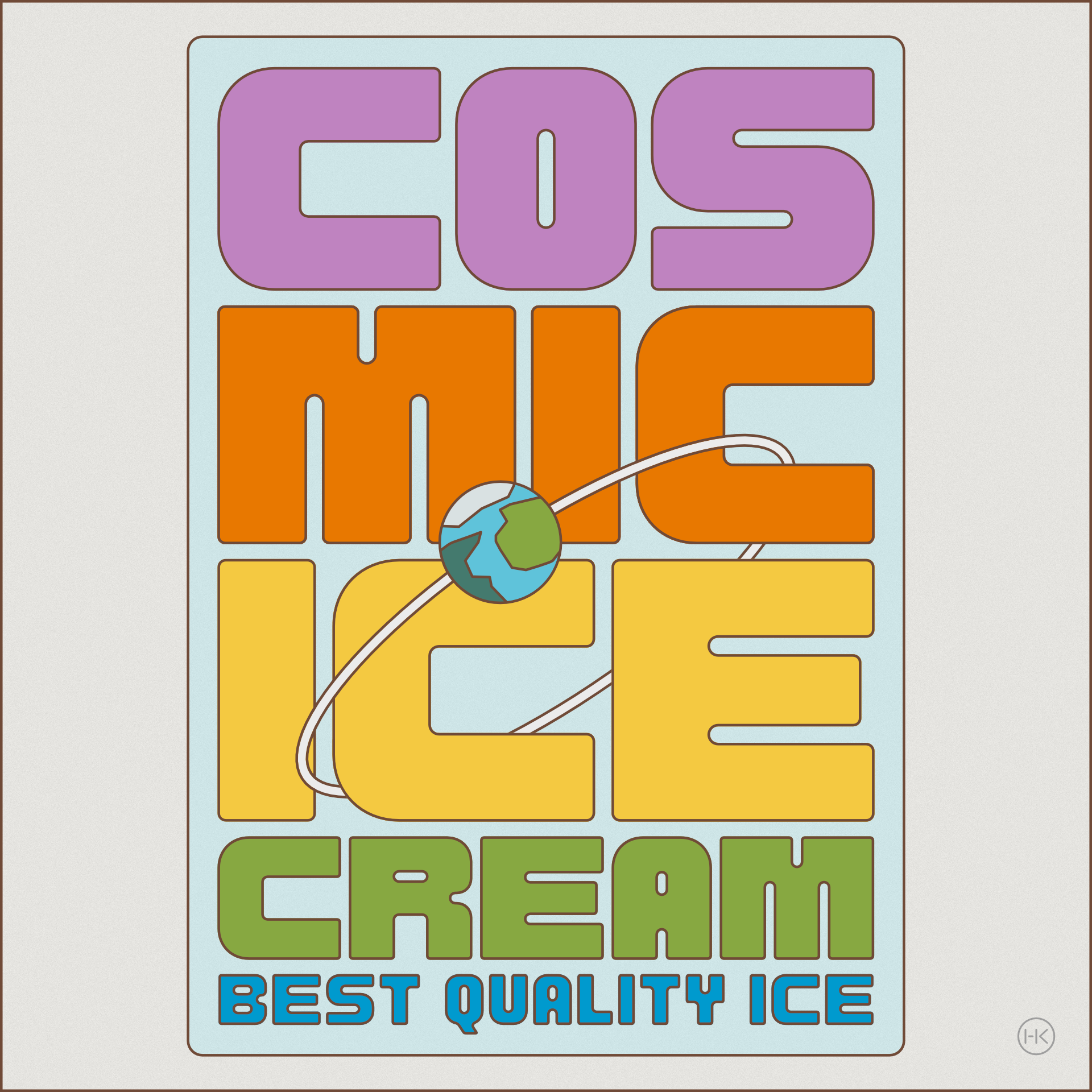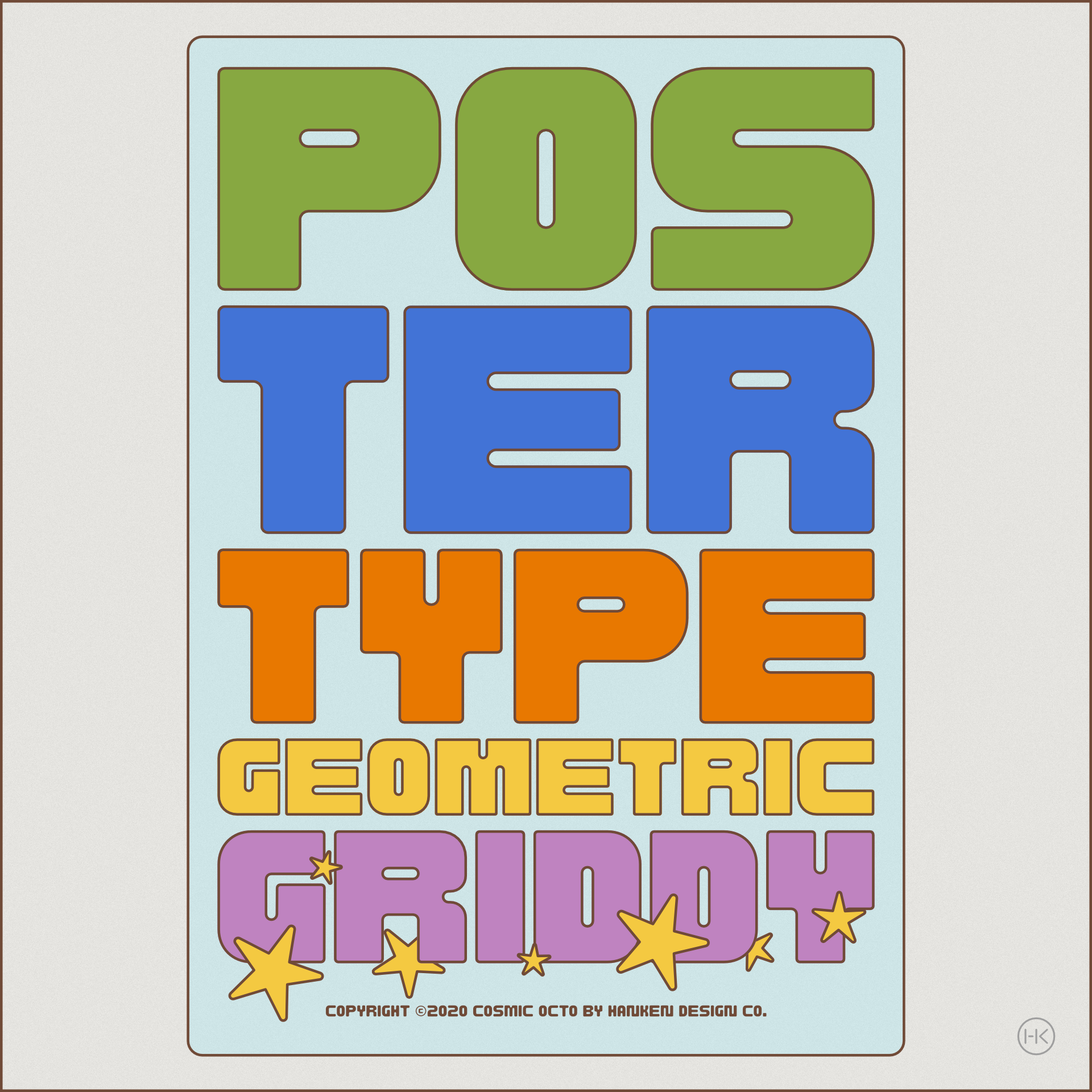
Cosmic Octo™ is a display/poster typeface for an experimental ice cream recipe venture.
Glyphs: 295
Styles: 3 (Medium, Bold, and Heavy)
Class: Display